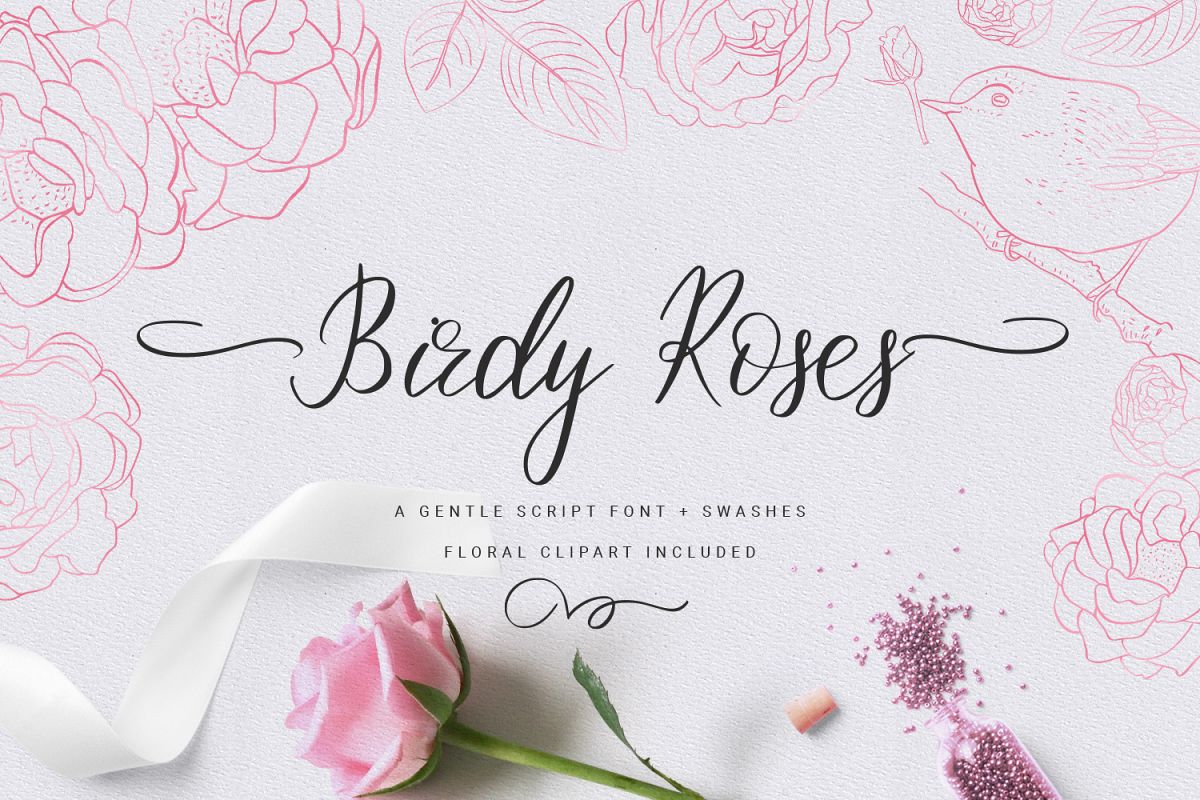
Birdy Roses | Script font and Swashes
Happy to introduce Birdy Roses Script font!
• hand lettered quality
• an elegant look
• swashes!
• modern calligraphy
• 30 ligatures
• suitable for wedding invitations, announcement, and posters
• perfect for social media posts
• BONUS! Vector floral clipart included!